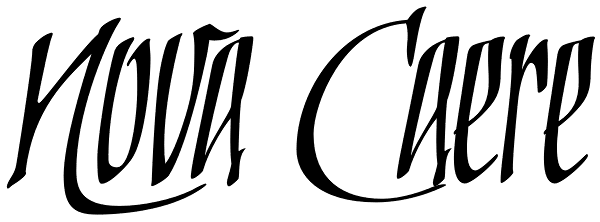
Nova Caere
Nova Caere is a typical urban calligraphy, gestural with its fast lines, with short and slightly noticeable ascender and descender traits. Condensed lower case and rounded capital letters are quite similar in height. Nova Caere has been studied for...